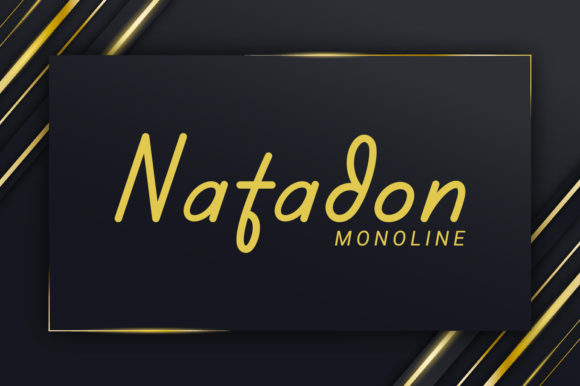
Embrace the eloquence of Natadon, an exquisitely crafted handwritten script font that exudes a touch of whimsy and charm. Immerse yourself in a world of flowing strokes and delicate curves that dance across the page, capturing the essence of handwritten elegance. Designed by the skilled artisans at JprintStudio, Natadon is the epitome of sophistication and artistry, transforming your creative visions into masterpieces.
Whether you seek to elevate your branding endeavors, craft captivating headings, design enchanting wedding invitations, or create personalized signatures that leave a lasting impression, Natadon is your font of choice. Its versatility knows no bounds, extending to logos, labels, and an array of other projects that call for a touch of handwritten flair.
With Natadon, your designs transcend the ordinary, becoming works of art that captivate and inspire. Its enchanting aura breathes life into your creations, leaving an indelible mark on the hearts and minds of your audience. Unleash your creativity and let Natadon guide you on a journey of artistic expression, where imagination knows no limits.
Make a bold statement with Natadon. Its intricate details and graceful forms command attention, ensuring your designs stand out from the crowd. Elevate your projects to new heights and leave a lasting impression with this exquisite font.